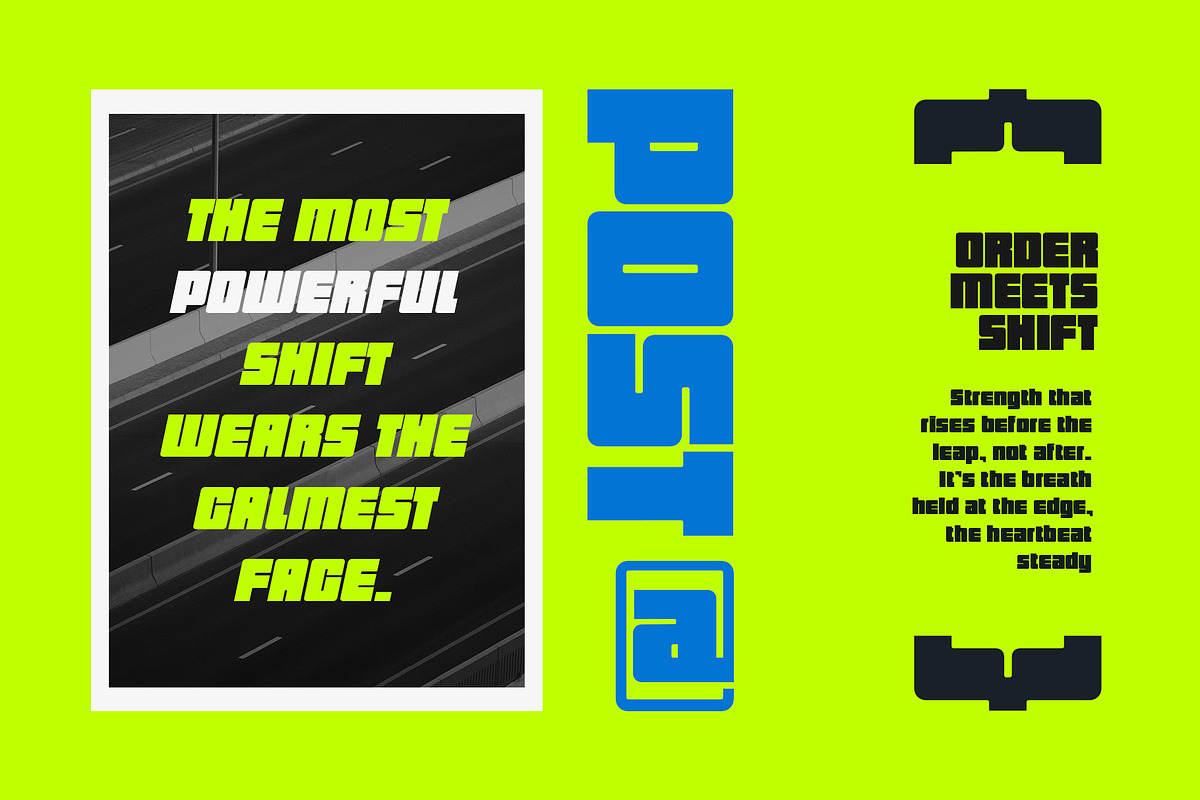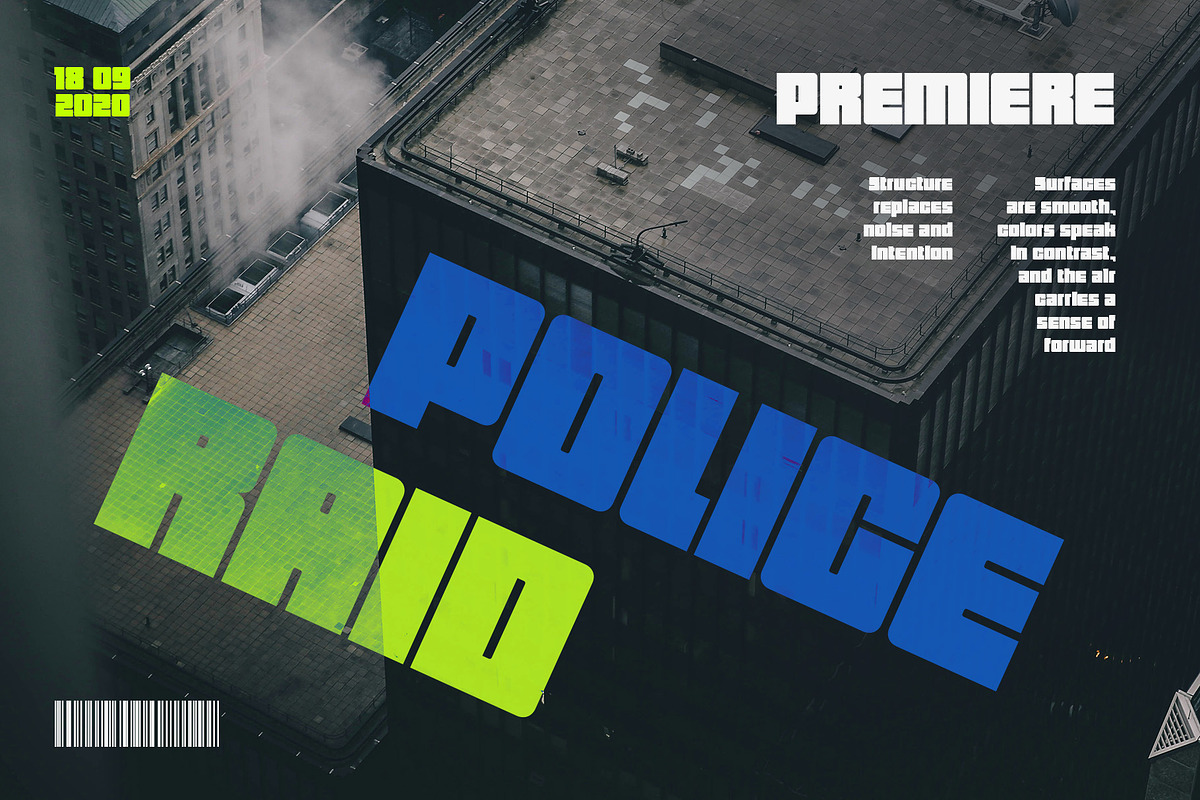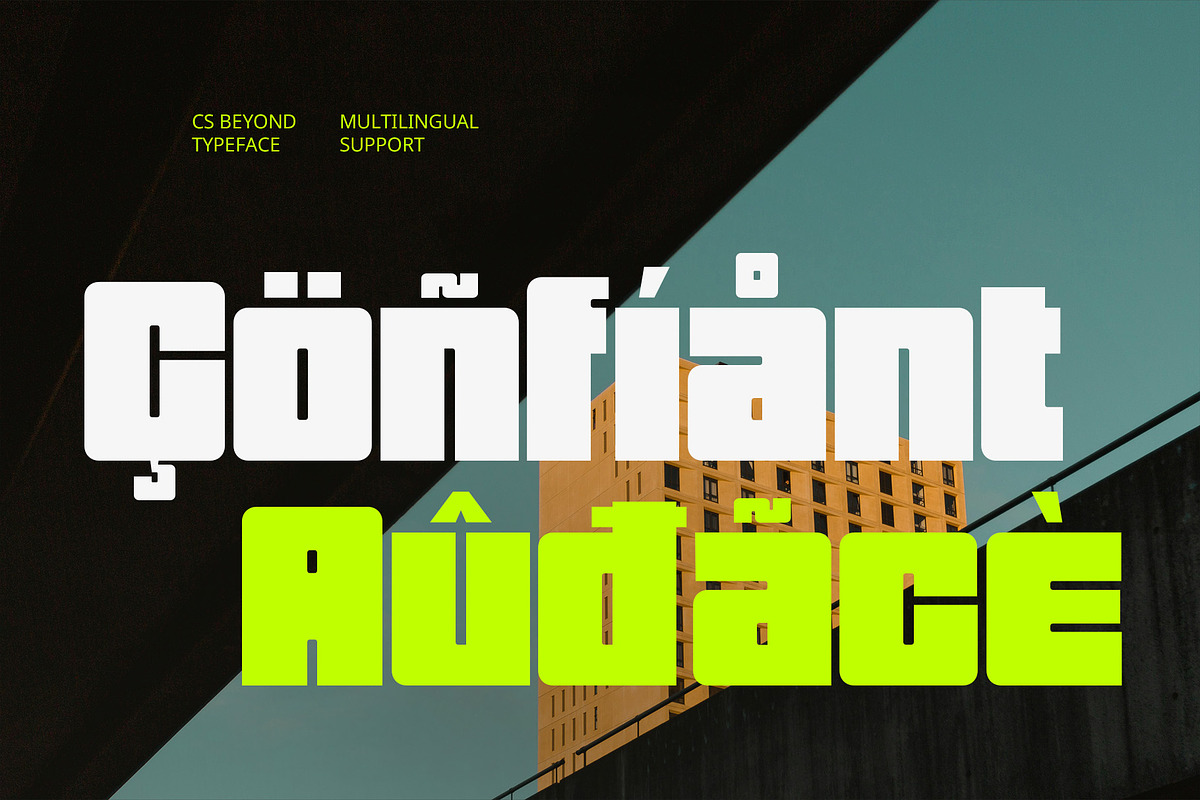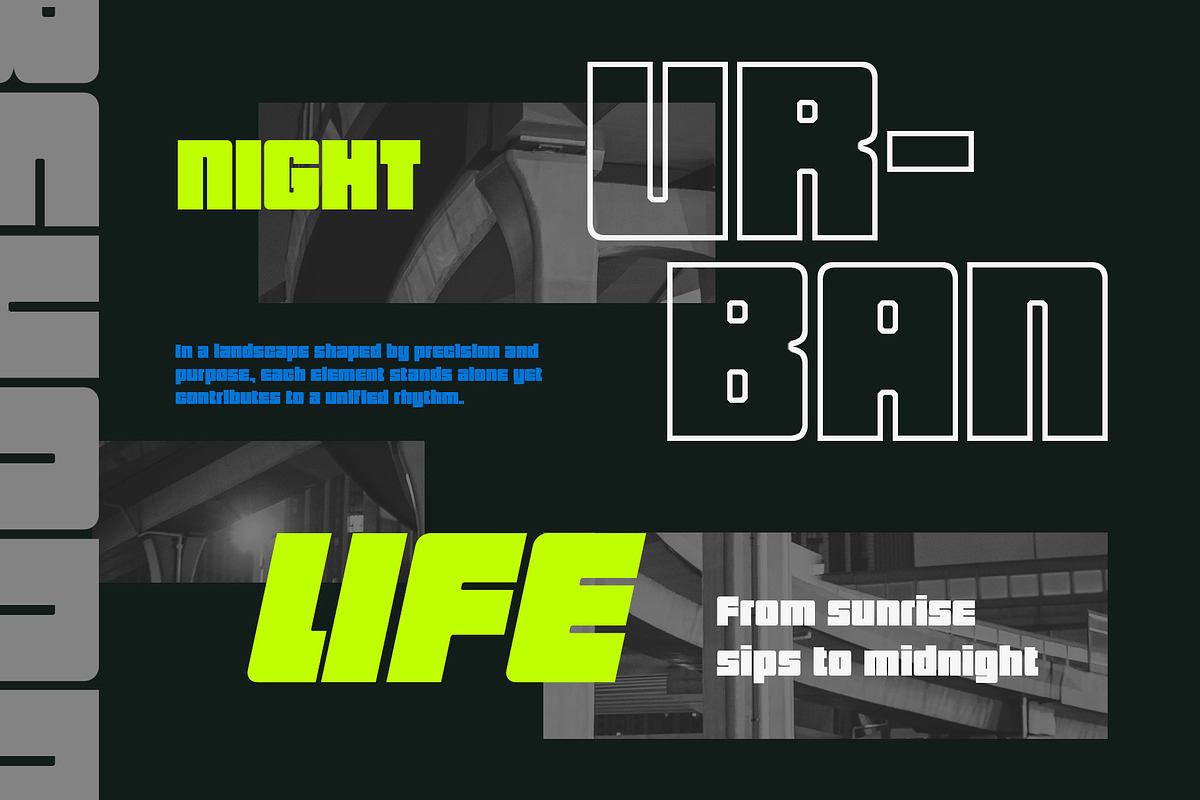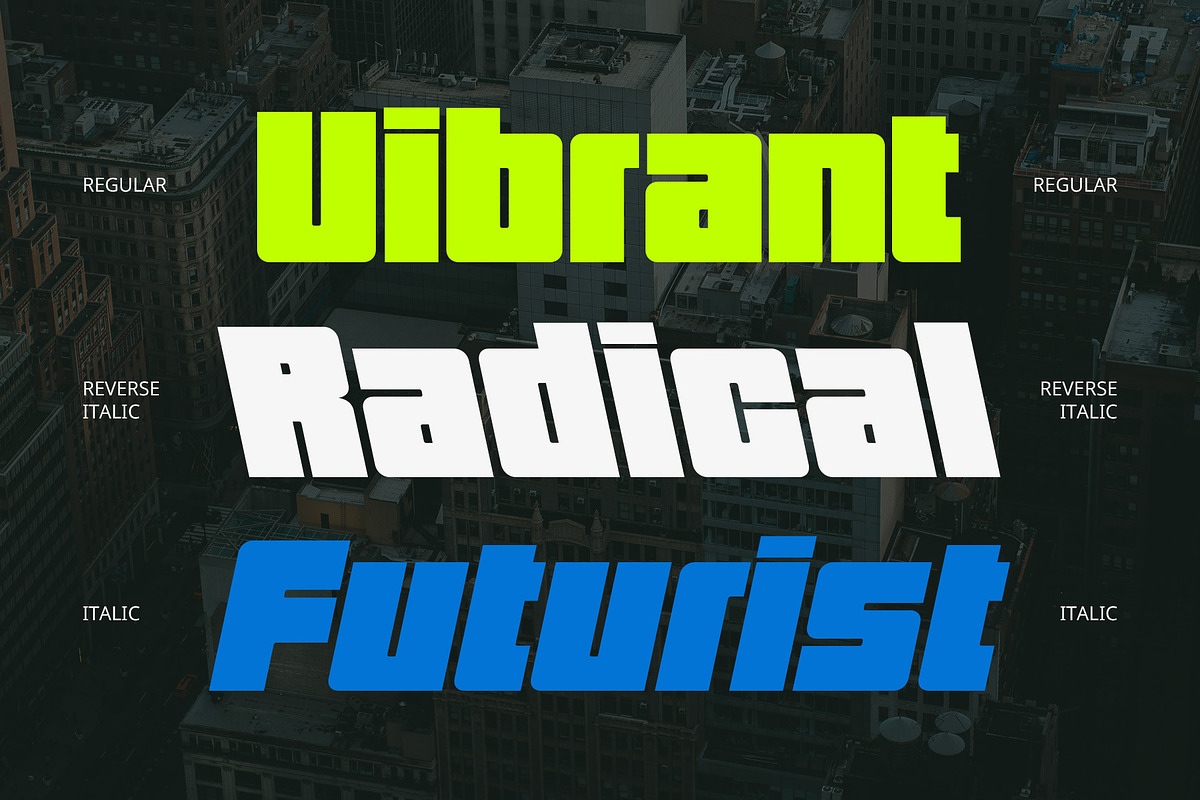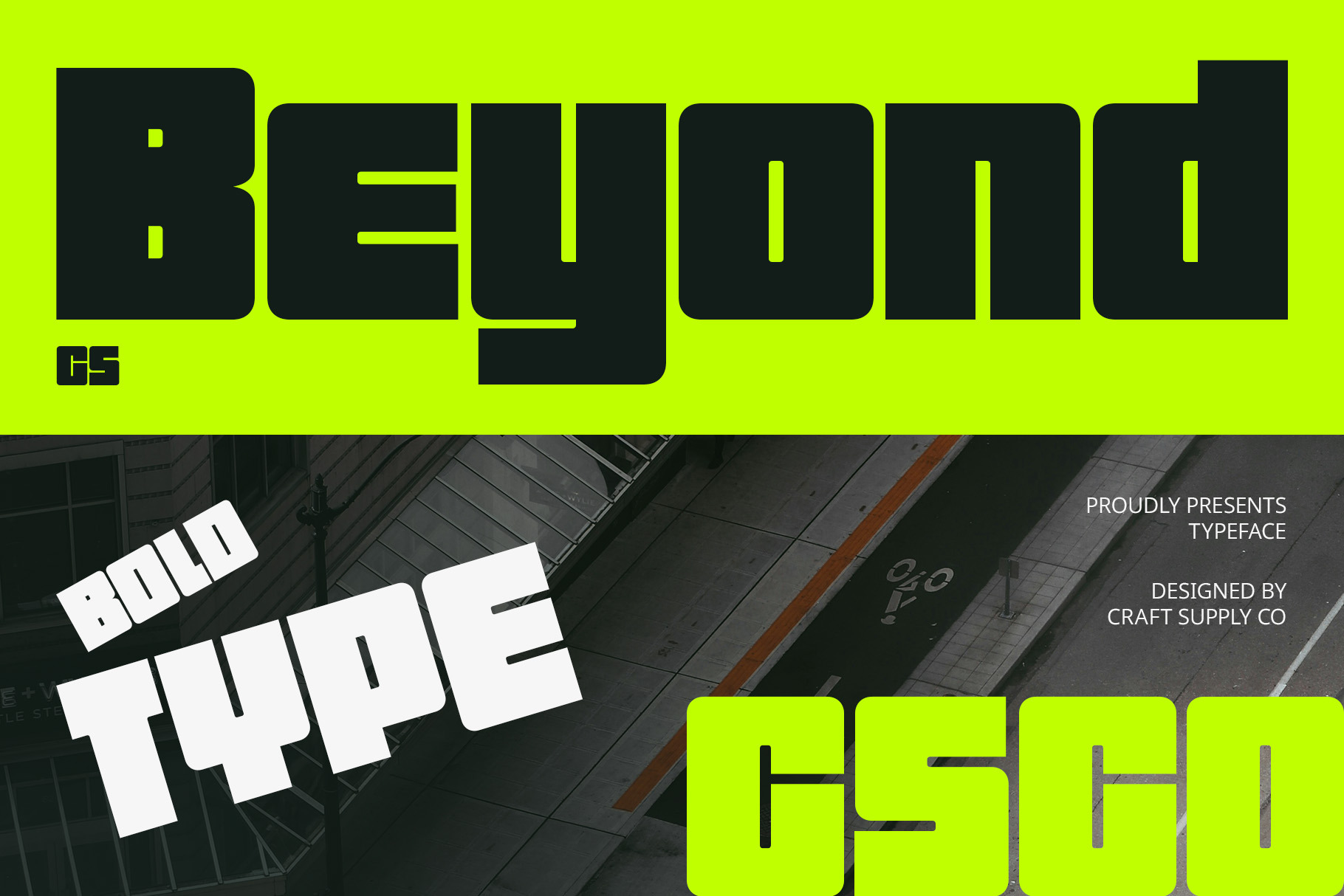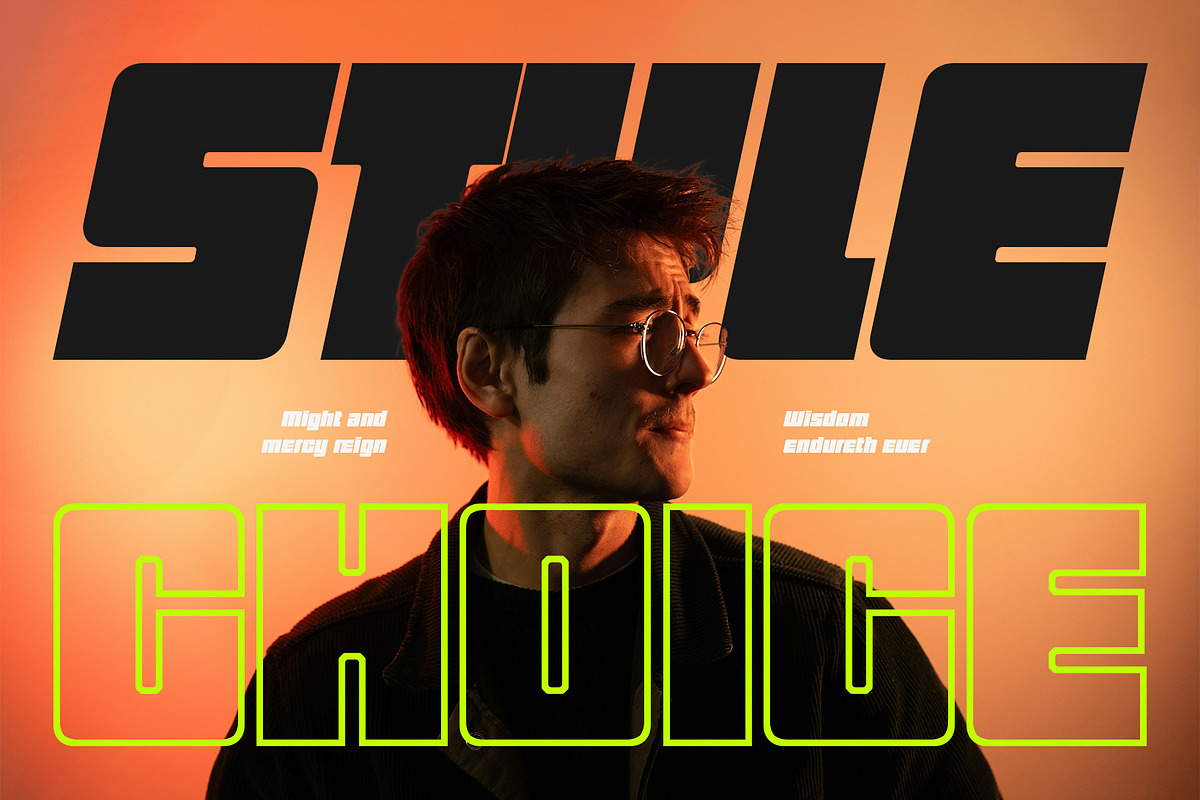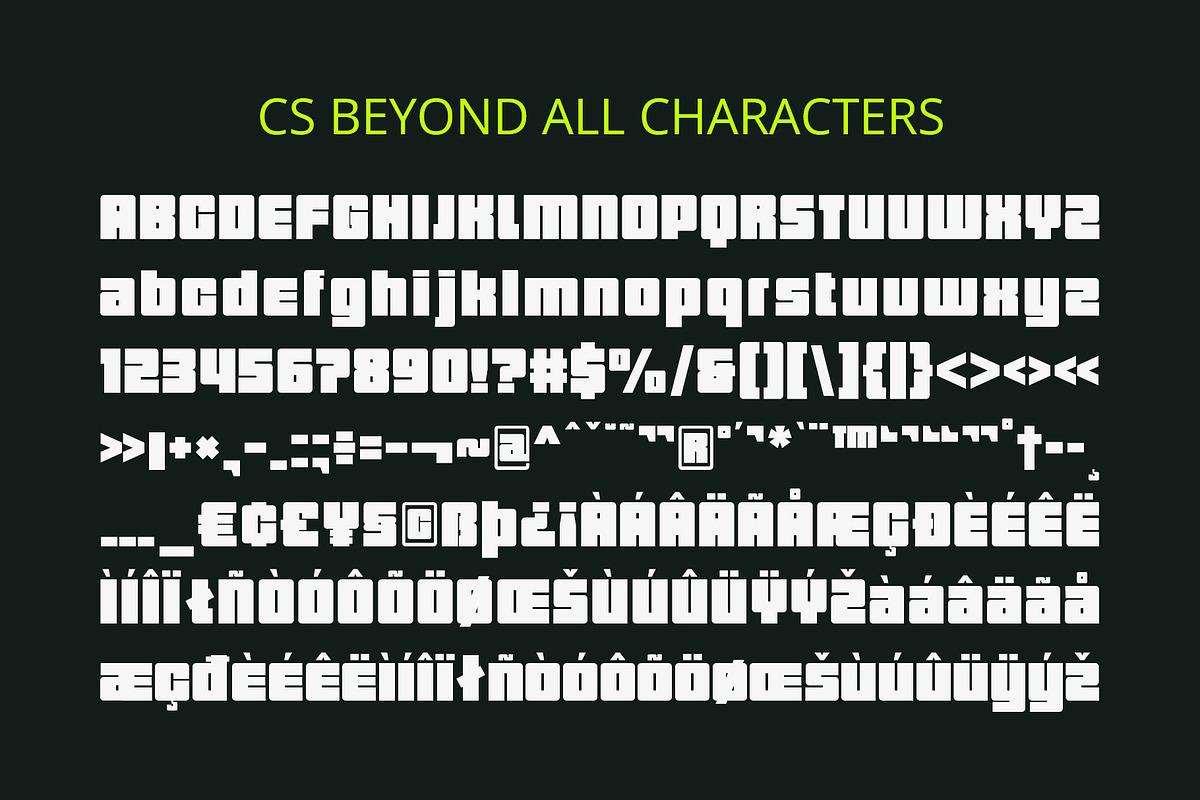
CS Beyond – Bold Font
CS Beyond – Bold Font: Bold Style for Modern Impact
Strong and Stylish Condensed Structure CS Beyond is a bold sans serif font with a condensed, modern silhouette. Its narrow yet sturdy letterforms make a powerful visual impression while conserving space—ideal for bold headlines, compact layouts, and designs that need to stand out without sacrificing clarity.
Confident Contemporary Vibe Designed with a confident and contemporary aesthetic, CS Beyond brings a sharp edge and modern energy to your typography. The bold weight adds visual authority, while the condensed shape ensures a sleek and efficient presence in any composition.
Perfect for Trendy and Edgy Designs Whether used in branding, social media graphics, poster layouts, or product packaging. CS Beyond is designed to cater to current design trends with a touch of timeless minimalism. It’s perfect for fashion branding, posters, social media graphics, packaging, and more. The font’s assertive personality brings a cool, edgy tone that works well in youth-oriented visuals, streetwear themes, and lifestyle branding.
Versatile Across Creative Applications From fashion branding to digital content and beyond, CS Beyond’s clean lines and bold form make it highly adaptable. It’s especially suited for designers seeking a font that combines assertiveness with a sense of modern style and minimalism.